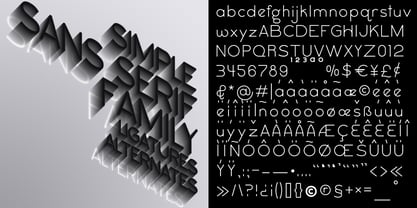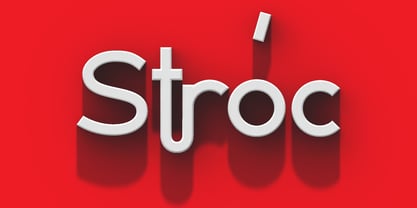
Stroc
by designoMatt
The Stroc Font Family was designed by Matthew Gallagher and published by designoMatt. Stroc contains 8 styles and family package options. More about this family
Stróc is an updated modern sans serif font based on an early 20th sign-painters manual and is created using only a few key strokes in Illustrator. The initial release contains a few weights and styles which have a few alternate glyphs as well as some discretionary ligatures that can be used for all design needs from decorative used to body copy. The font is bold and clean and can be used where a simple sans serif is called for to convey the author and/or designer’s intent.
Designers: Matthew Gallagher
Foundry: designoMatt